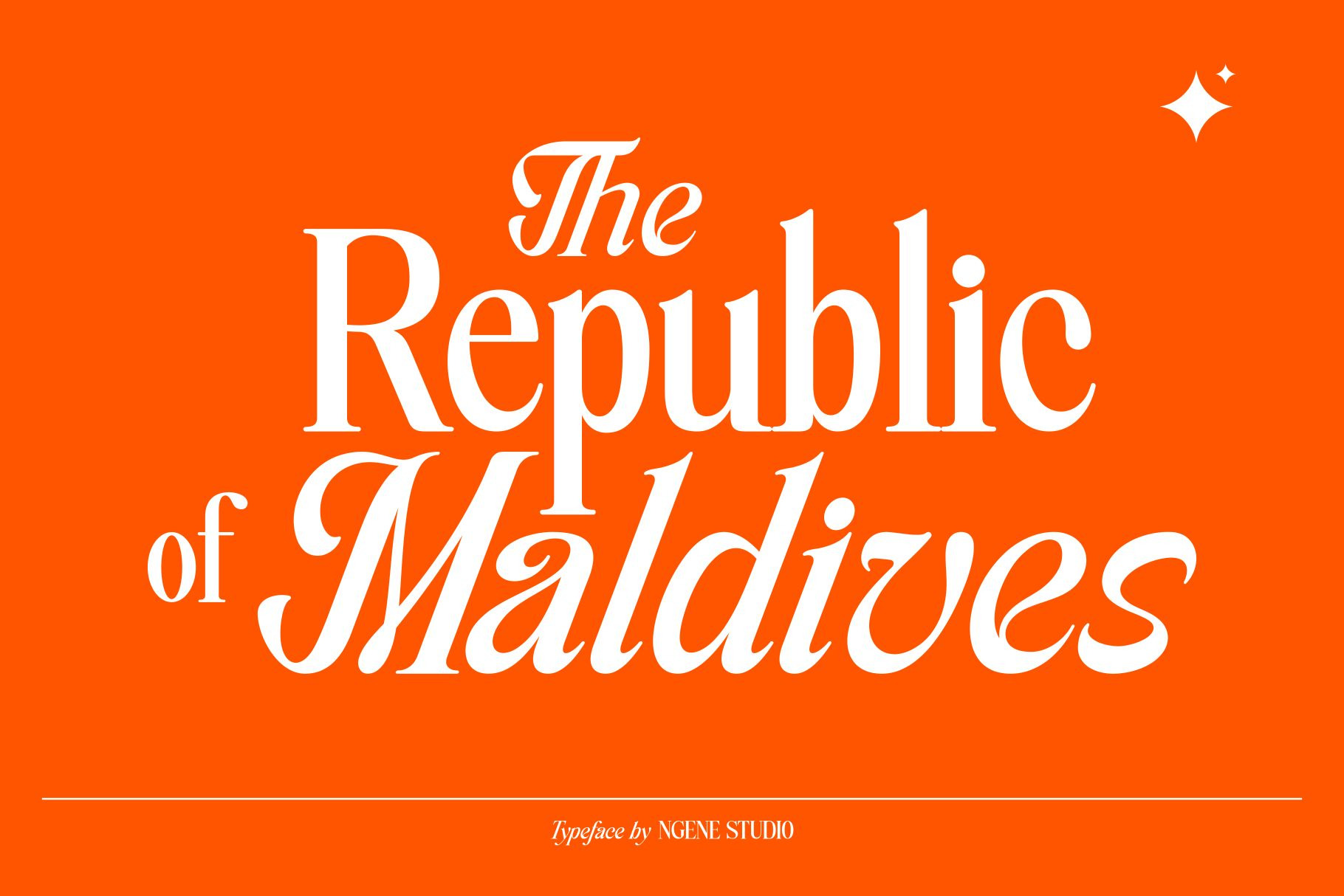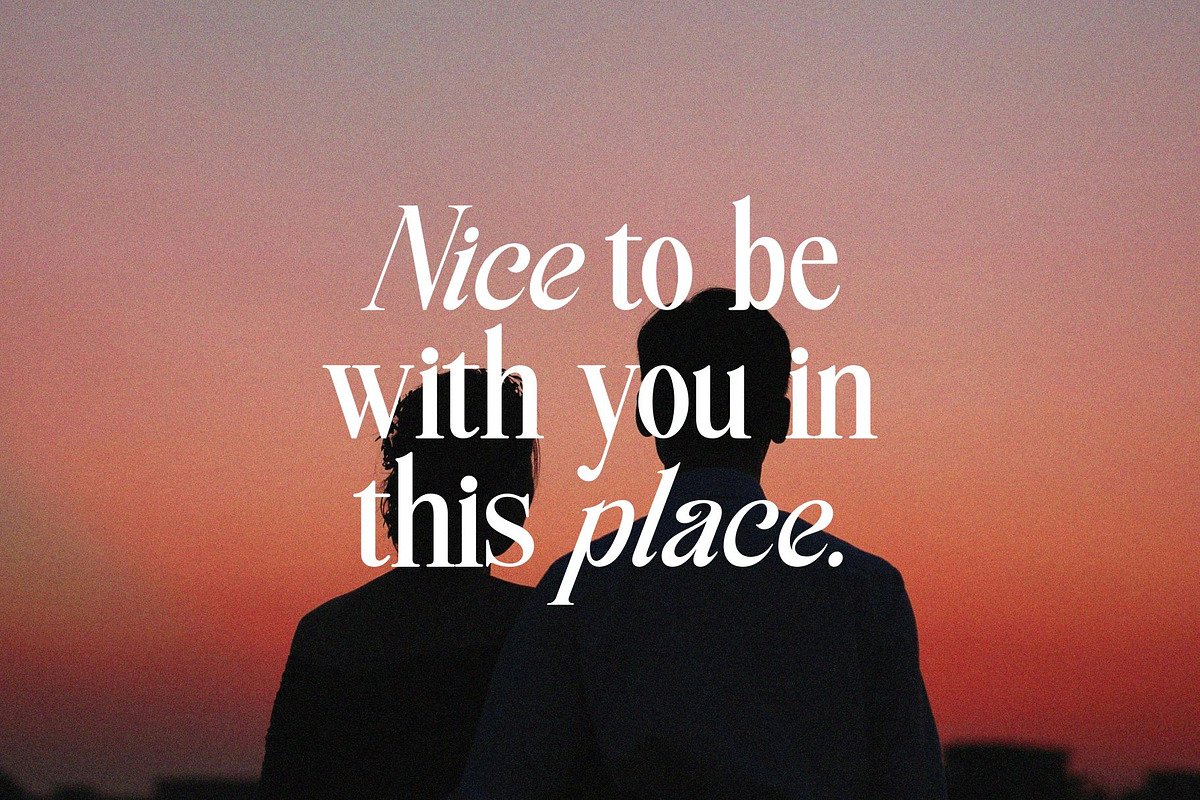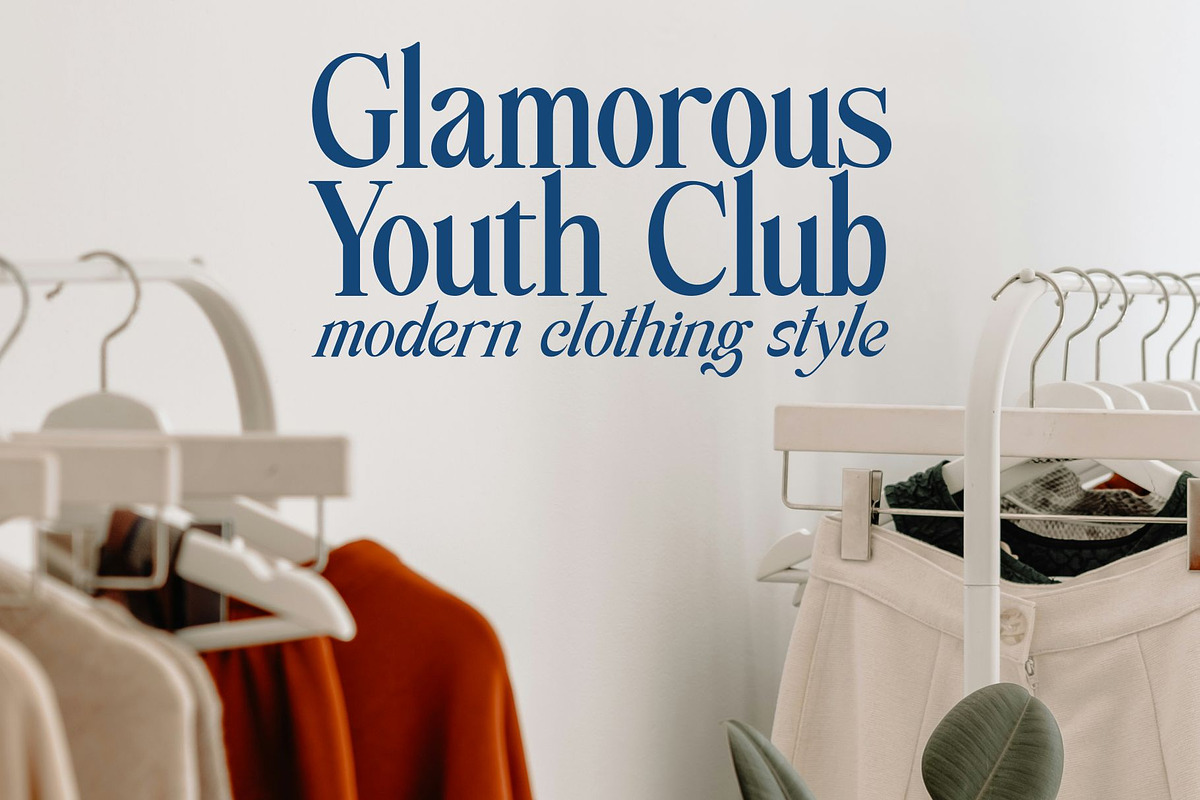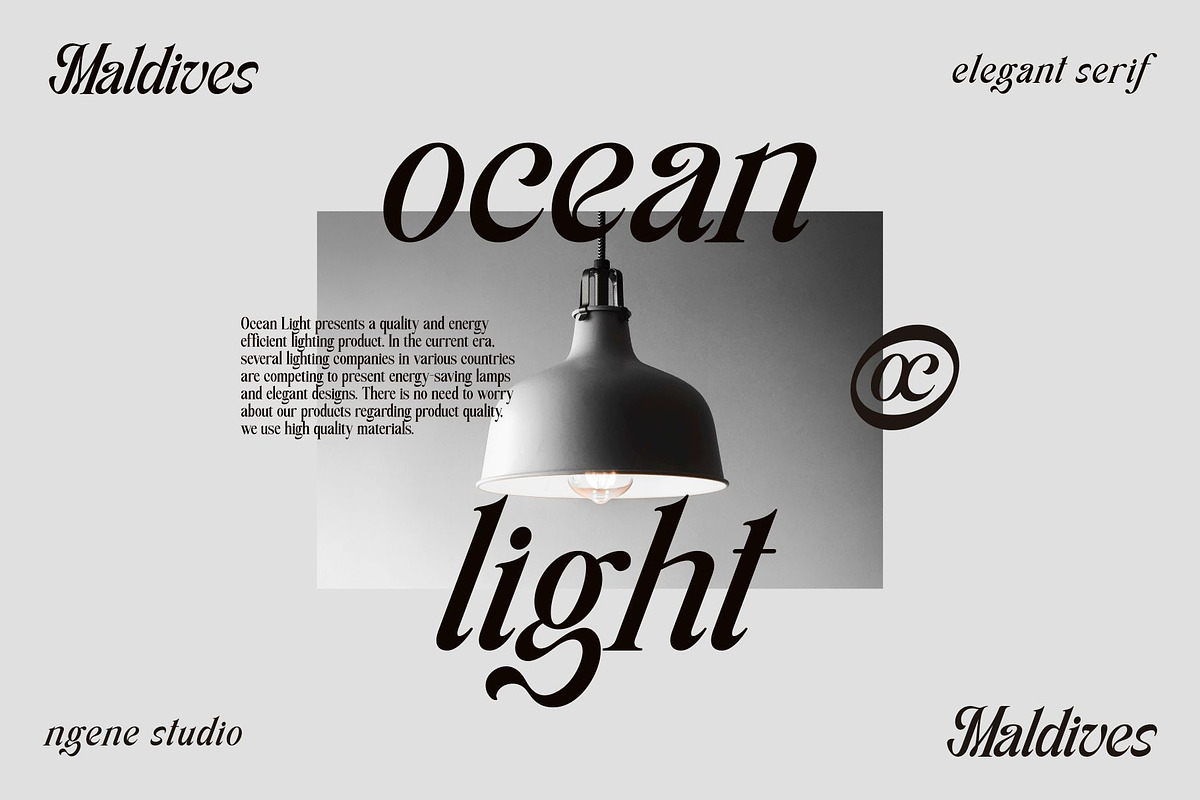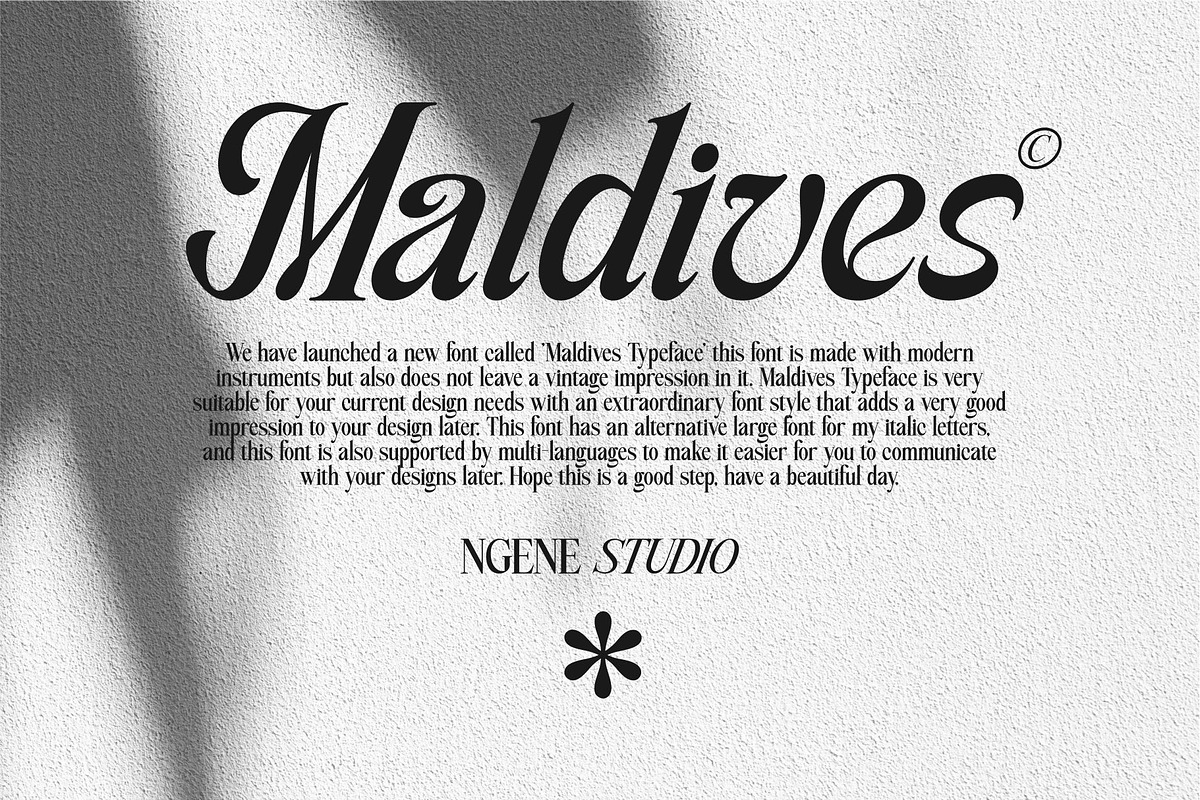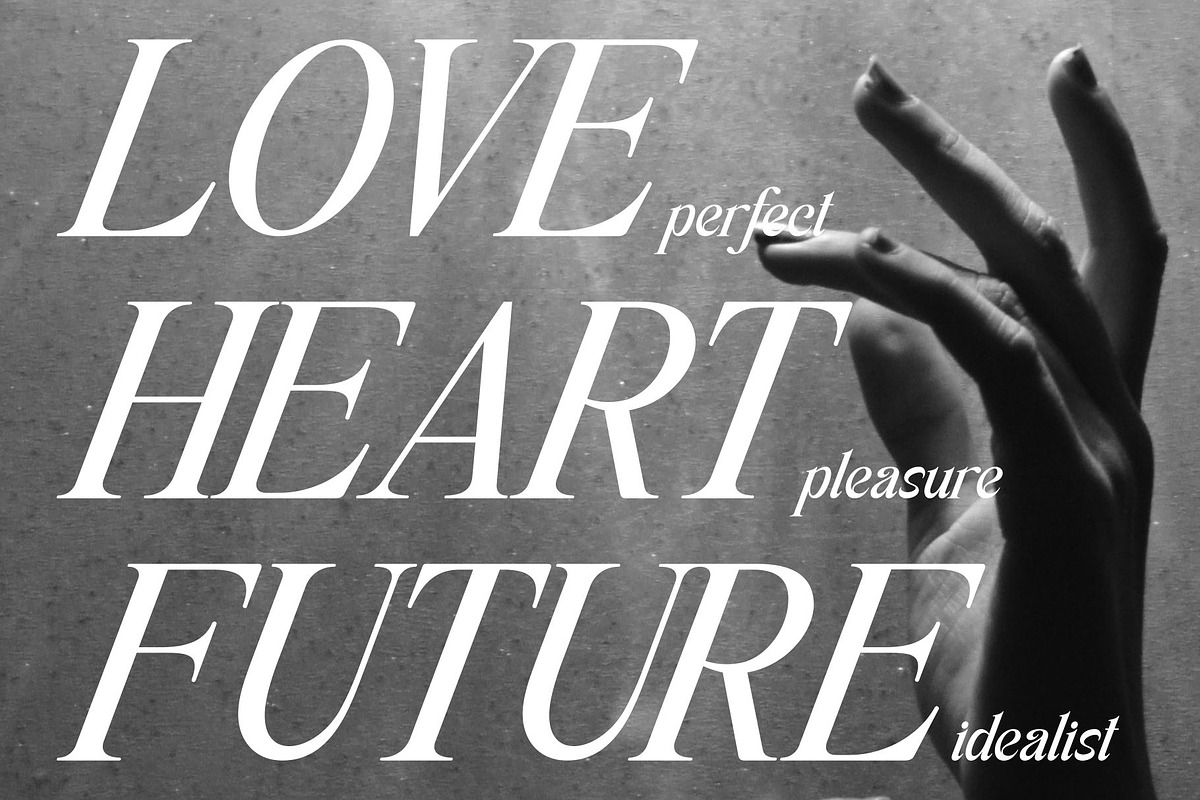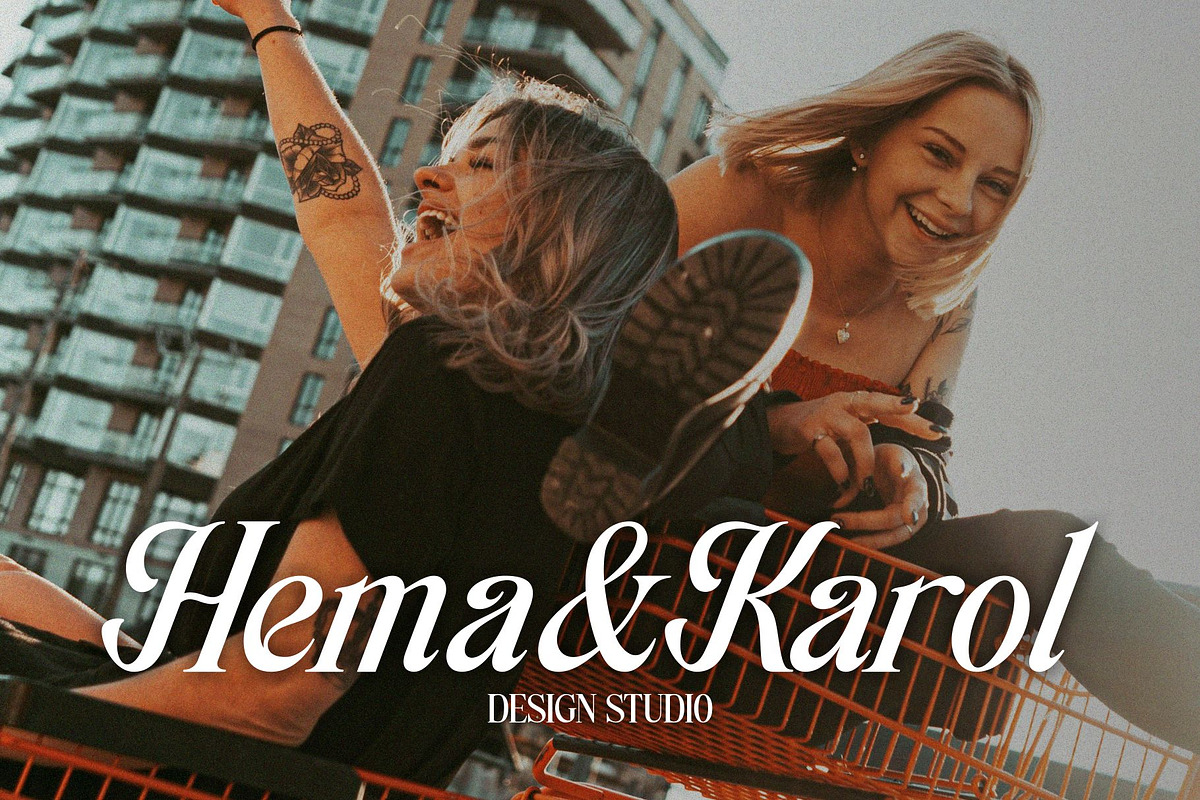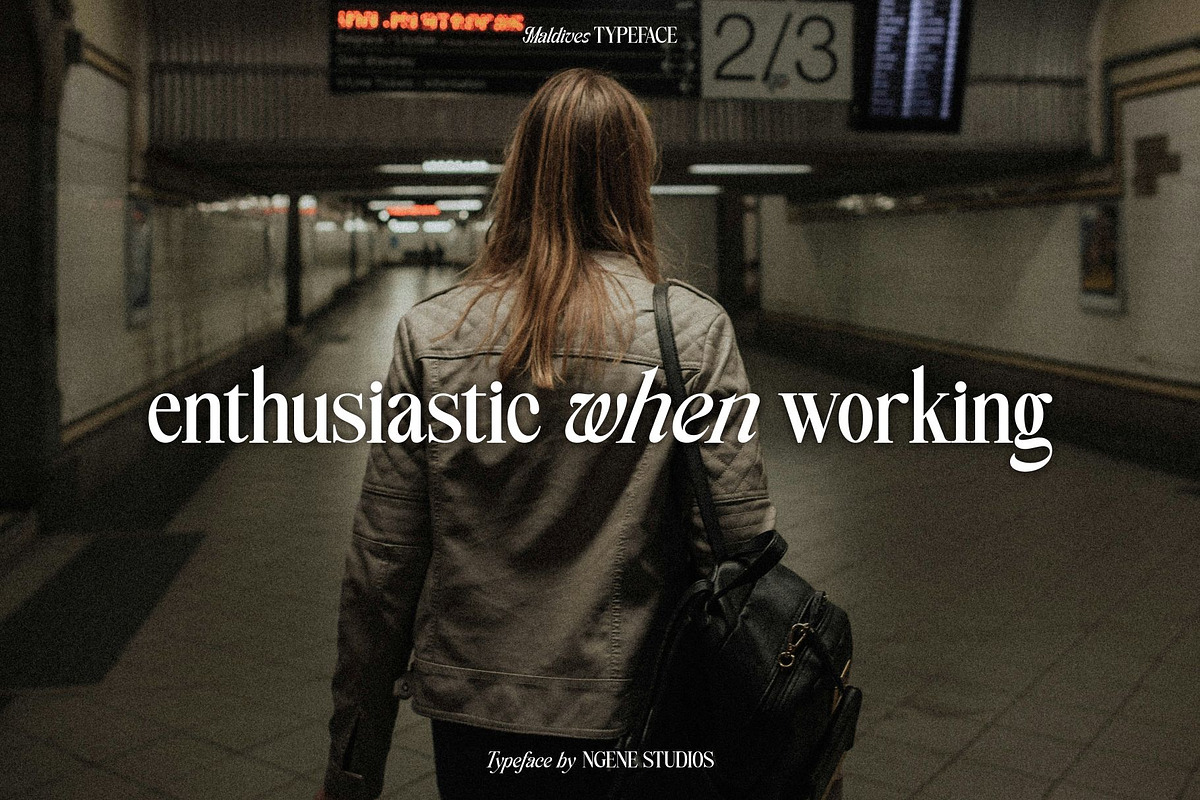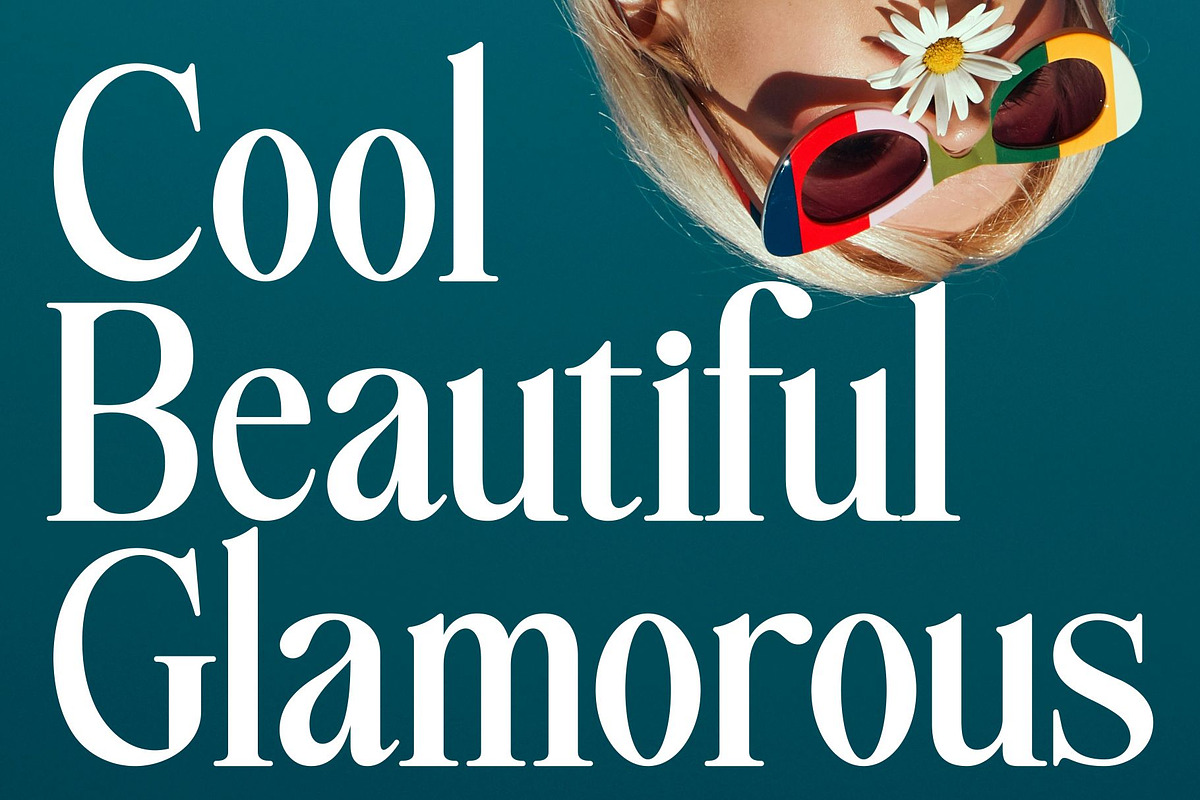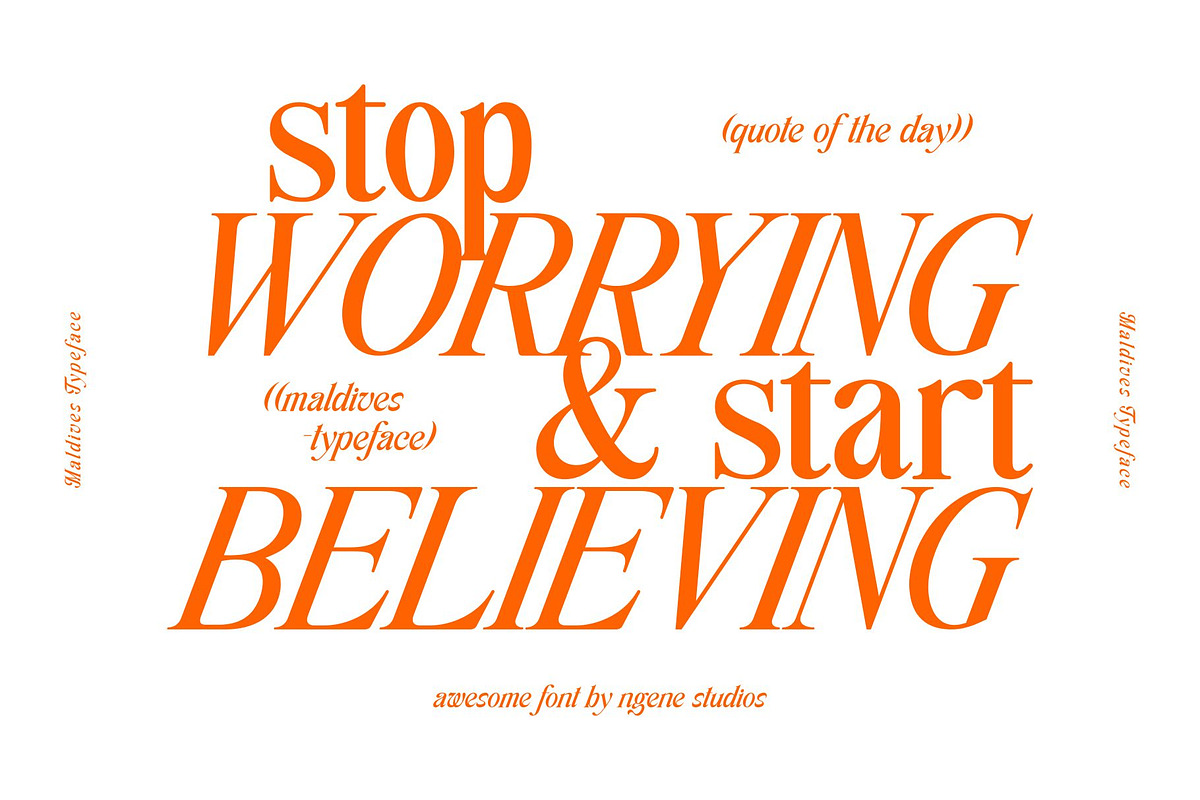
Maldives Typeface
INTRODUCING
We have launched a new font called Maldives Typeface this font is made with modern instruments but also does not leave a vintage impression in it. Maldives Typeface is perfect for your current design needs with an extraordinary font style that adds a very good impression to your design later. This font has a large font alternative for my italics, and this font is also multi-language supported to make it easier for you to communicate with your designs later.